Choosing the right video game fonts is essential when creating designs that feel immersive, dynamic, and visually engaging. Typography plays a crucial role in gaming aesthetics, helping to build atmosphere, define genre, and strengthen storytelling.
Whether you are designing game interfaces, posters, streaming overlays, or branding for gaming content, the font you choose can significantly impact the overall experience. The best fonts for video games not only look stylish but also match the design’s theme and tone.
In this article, we will explore three of the best video game fonts: Ranventure, Woodzy, and Zombox, along with their characteristics, use cases, and practical tips for using them effectively in creative design.
Why Video Game Fonts Matter in Design
Video game fonts are more than decorative elements. They are part of the visual language that communicates mood and gameplay style.
Using the right fonts for a video game can:
- Enhance immersion and storytelling
- Define the genre (fantasy, horror, adventure, etc.)
- Improve visual identity
- Make designs more memorable
For example, a horror game requires a completely different typography style compared to a fantasy adventure game. This is why choosing the right font is critical.
Characteristics of Video Game Fonts
1. Strong Personality
Gaming fonts often feature bold, distinctive shapes that reflect a specific theme.
2. Stylized Letterforms
Unlike standard fonts, video game fonts are often decorative and customized.
3. High Visual Impact
They are designed to stand out and grab attention instantly.
4. Theme-Oriented Design
Each font is usually associated with a specific genre, such as fantasy, horror, or cartoon.
Video Game Fonts: 3 Best Gaming Typefaces for Creative Design
Ranventure
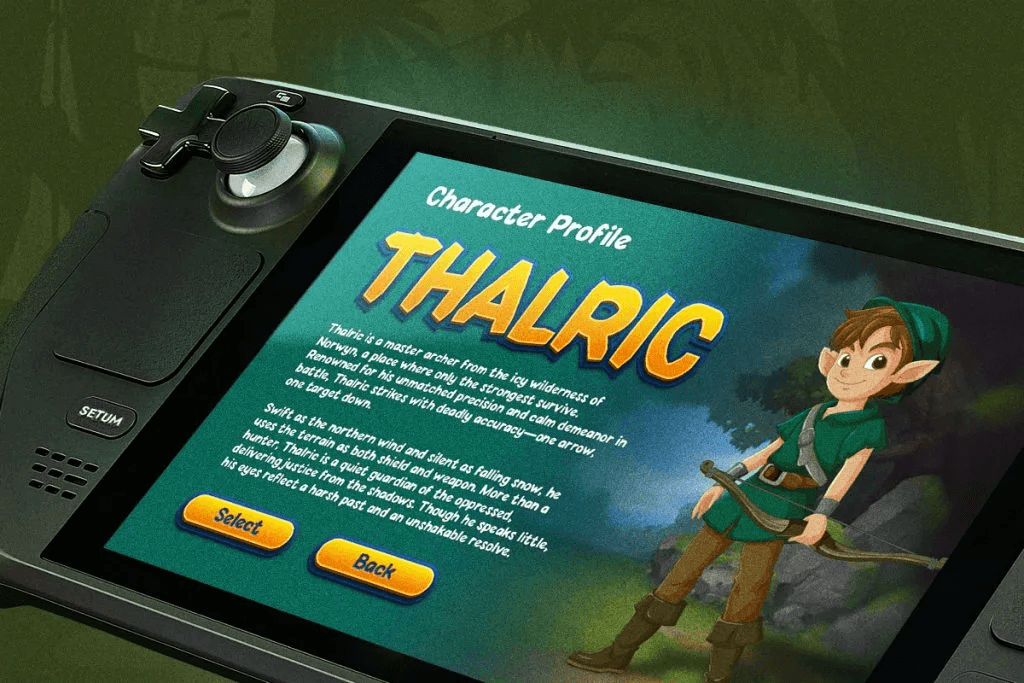
Ranventure is a fantasy-inspired typeface that perfectly captures the spirit of adventure games.
Characteristics:
- Bold and chunky shapes
- Adventure vibe
- Handcrafted Style
Best for:
- Adventure game titles
- RPG (role-playing game) designs
- Comic-style artwork
Ranventure works well when you want to create a magical and adventurous atmosphere. It brings a sense of exploration and storytelling to your design.
Woodzy
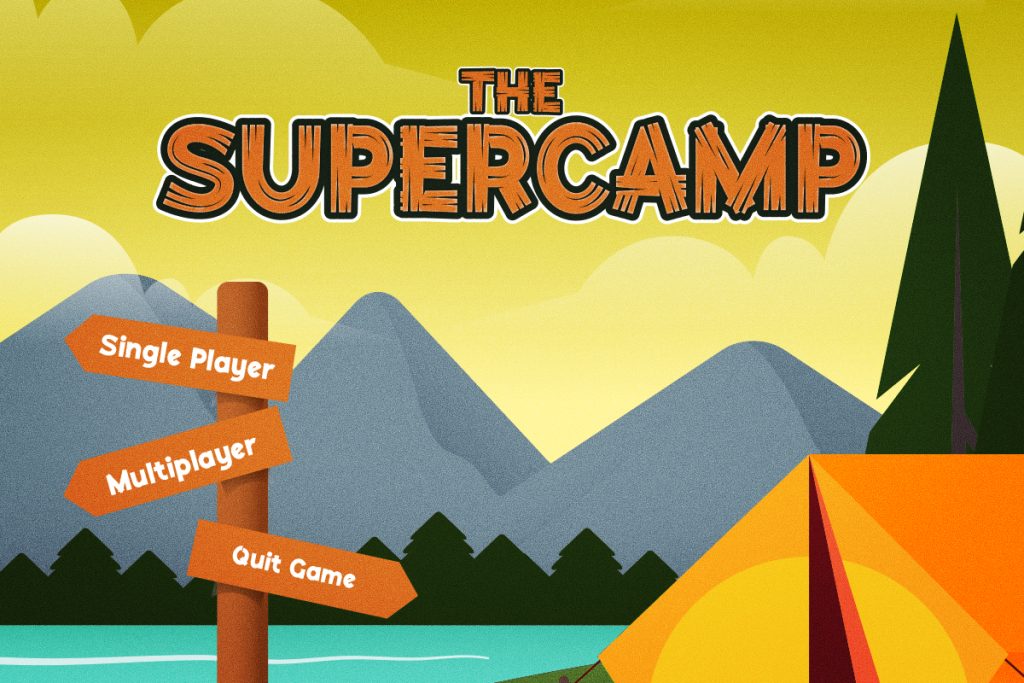
Woodzy is a cheerful font perfect for kids, bringing a sense of adventure to your designs. It features rounded edges, unique details, and bold strokes.
Characteristics:
- Tounded edges and quirky details
- Fun, organic, adventurous
- Nature-inspired look
Best for:
- Adventure games
- Kids’ games
- Toy packaging
Woodzy adds a bold and memorable personality tone, making it perfect for games that focus on fun and adventure.
Zombox
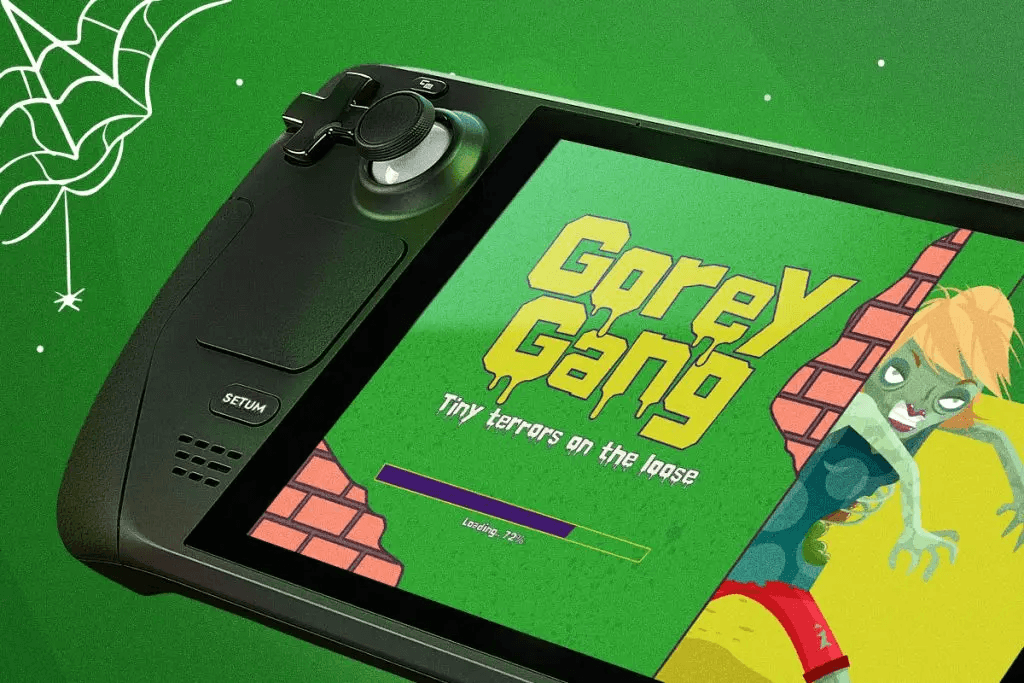
Zombox is a spooky zombie-inspired display typeface built for designers who want to capture the raw, undead energy of horror.
Characteristics:
- Rough and broken letterforms
- Grunge and distressed texture
- Strong horror aesthetic
Best for:
- Zombie games UI
- Haunted house branding
- Horror posters
Zombox is ideal for creating tension and fear. It instantly communicates danger and chaos.
How to Choose the Right Video Game Fonts
1. Match the Game Genre
Different genres require different typography styles:
- Fantasy → Ranventure
- Adventure → Woodzy
- Horror → Zombox
Always align your font with the theme of your design.
2. Consider Readability
Even though gaming fonts are decorative, they must still be readable.
Tips:
- Avoid overly complex letterforms
- Test readability at different sizes
- Use simple fonts for body text
3. Create Visual Hierarchy
Use typography to guide the viewer’s attention:
- Title → Decorative gaming font
- Subtitle → Simpler font
- Body text → Clean sans-serif font
4. Combine Fonts Carefully
Font pairing is important for balance.
Example:
- Gaming font → Headline
- Sans-serif → Supporting text
This combination ensures both style and clarity.
Tips for Using Video Game Fonts in Creative Design
1. Use for Headlines
Gaming fonts work best as titles or main visual elements.
2. Add Effects Carefully
Effects like shadows, glow, or textures can enhance gaming fonts, but avoid overusing them.
3. Use Color Strategically
Colors play a big role in gaming design:
- Dark colors → Horror
- Bright colors → Adventure
- Gold/brown→ Fantasy
4. Maintain Consistency
Use consistent typography throughout your design to strengthen visual identity.
Conclusion
Choosing the right video game fonts is essential for creating engaging and immersive designs. Fonts like Ranventure, Woodzy, and Zombox each offer unique styles that match different gaming themes, from fantasy and casual to horror.
By understanding font characteristics, matching typography with game genres, and applying good design principles, you can create visuals that are both attractive and effective.